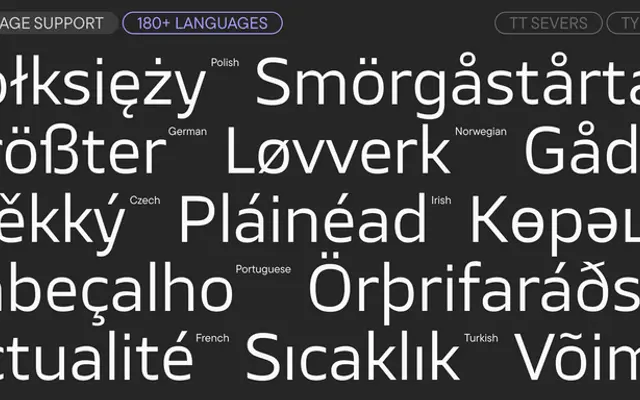
TT Severs
TypeType · Marina Khodak, Antonina Samokhina, Ravid Balaliev, Lada Sobchenko · 2018
A geometric sans with Arabic calligraphy-inspired counter junctions that functions credibly at both display and text sizes across 19 styles.
The defining feature is the internal bracket shape at the junction of ovals, drawn from traditional Arabic writing, which gives counters an unusually soft and distinctive profile at large sizes. Low stroke contrast and a carefully balanced black-and-white ratio allow those details to recede at small sizes, keeping the font readable in running text. The 2025 update expanded OpenType features to 27, added a variable font with weight and slant axes, and extended language support to over 180 languages across Latin and Cyrillic scripts.
Described by the foundry variously as geometric and humanist sans serif; the counters are defined by Arabic calligraphy-inspired bracket junctions, placing it firmly in the geometric sans category with humanist detailing at the joins.